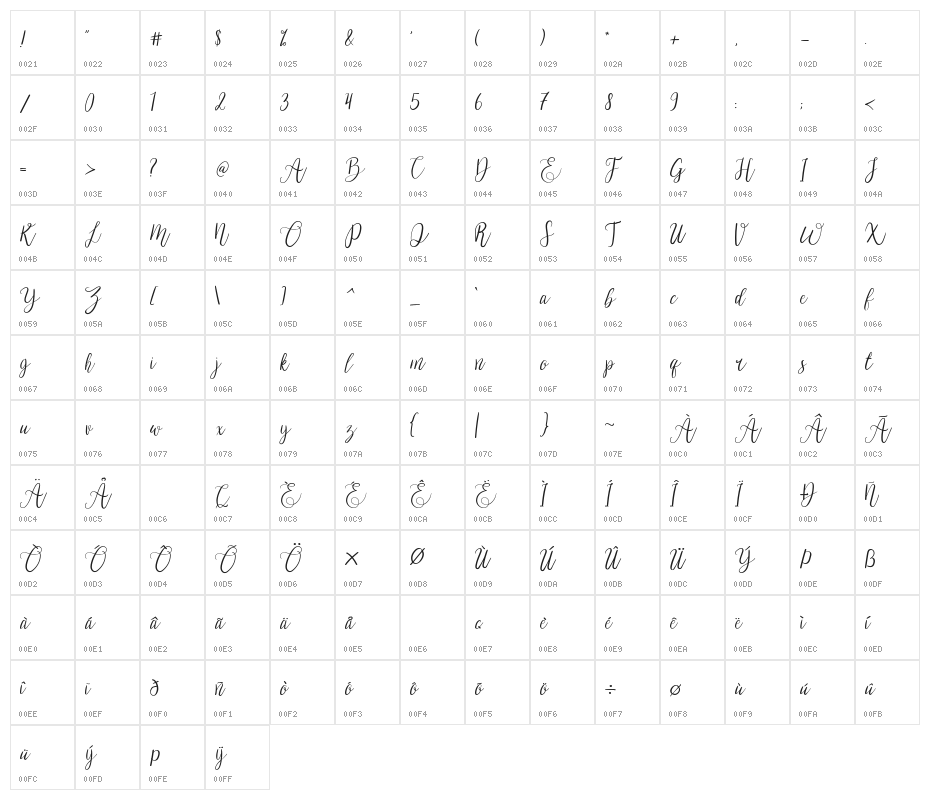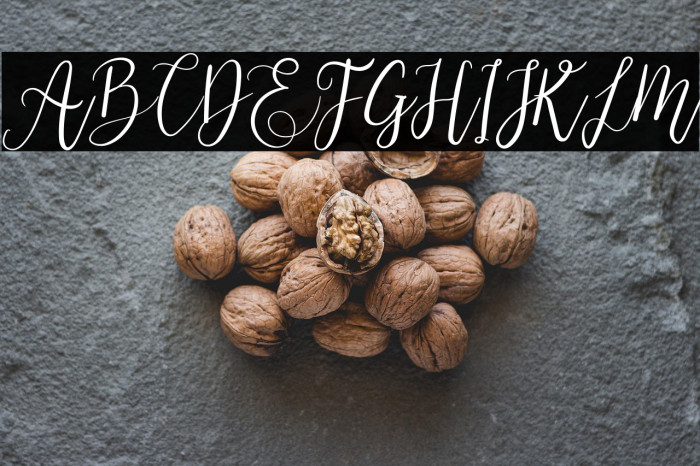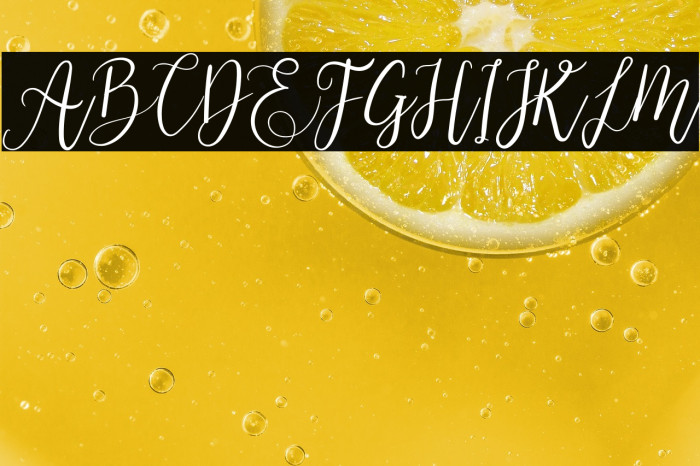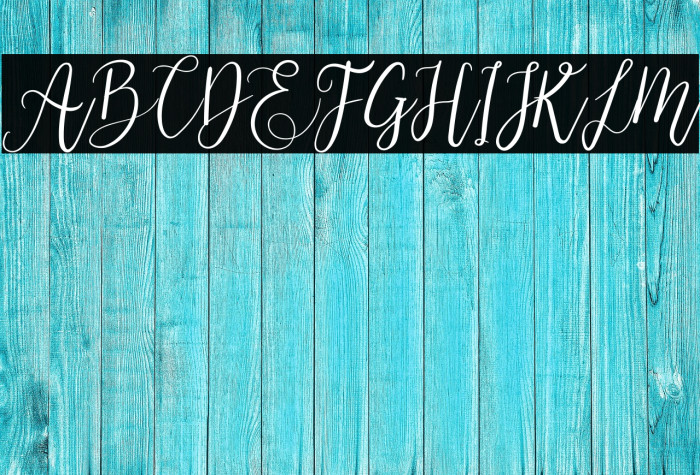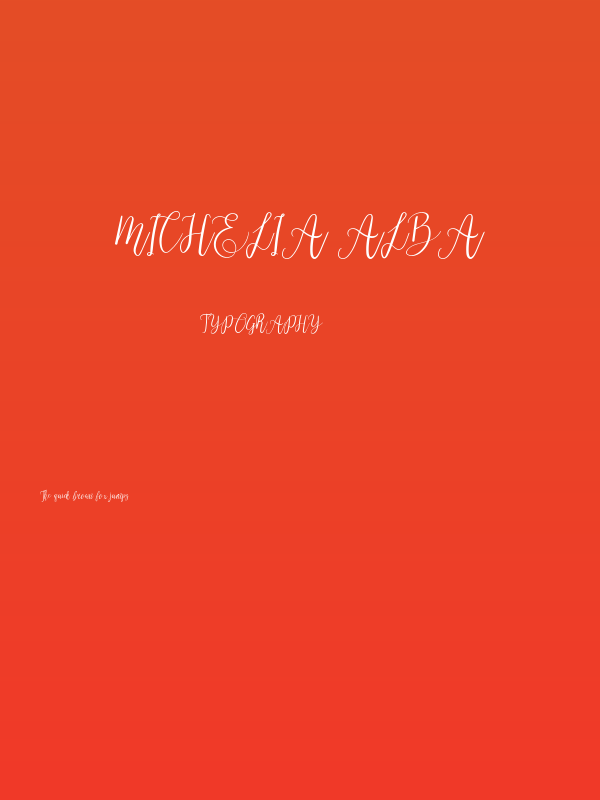
Michelia Alba Font
Michelia Alba Description
This elegant script font features flowing, cursive letterforms with a sophisticated and artistic flair. The uppercase letters are characterized by their sweeping curves and loops, giving them a graceful and fluid appearance. The lowercase letters maintain a consistent style, complementing the uppercase with their own delicate loops and swashes. The numerals are designed to match the overall aesthetic, with a slightly playful yet refined look. Special characters are thoughtfully integrated, maintaining the font's cohesive style. This font is perfect for projects that require a touch of elegance and sophistication.
Overall StyleElegant
Use CaseLogos, Invitations, Decorative text
Proposed ProjectsIdeal for wedding invitations, elegant branding, greeting cards, and upscale packaging.